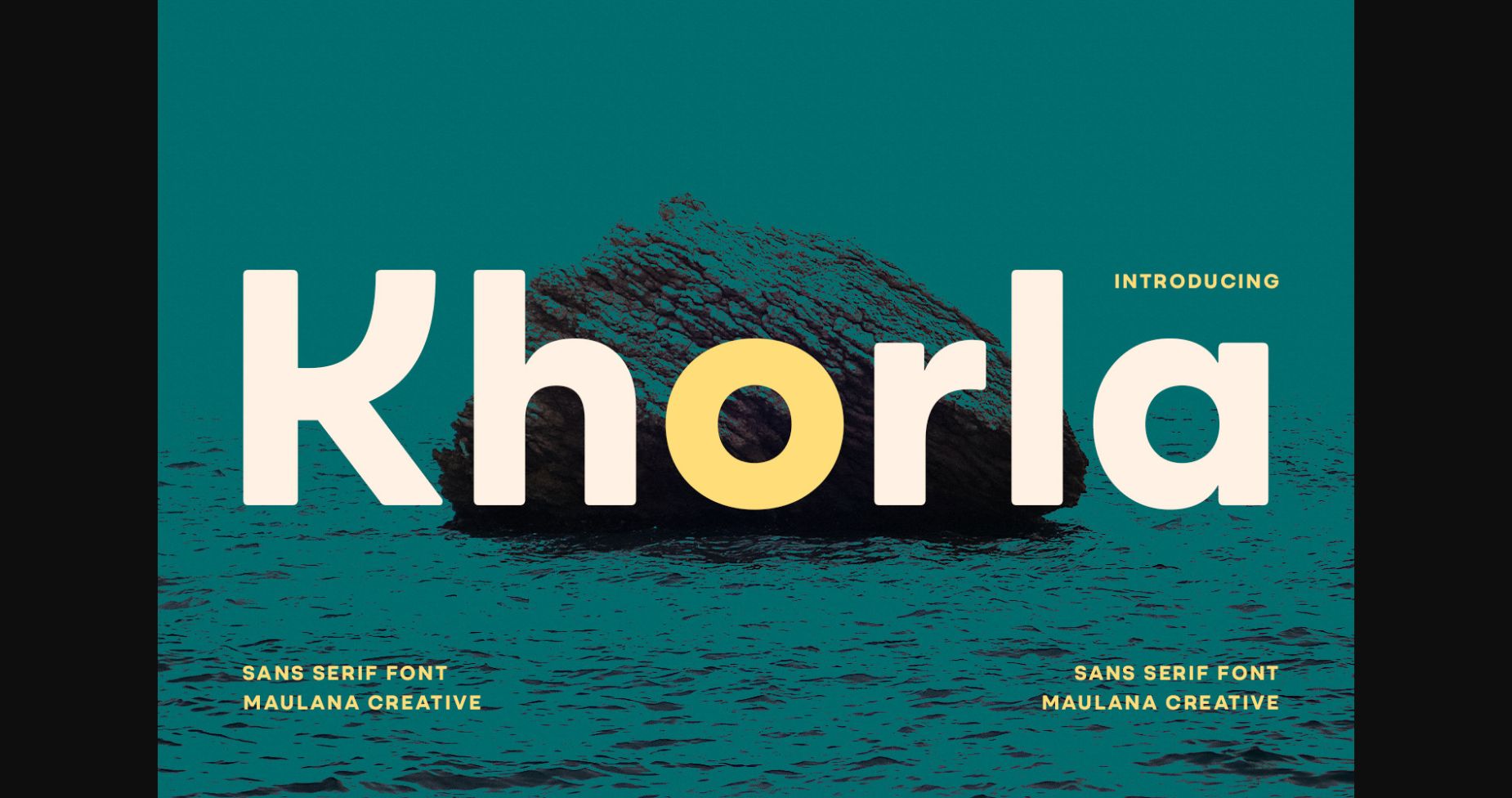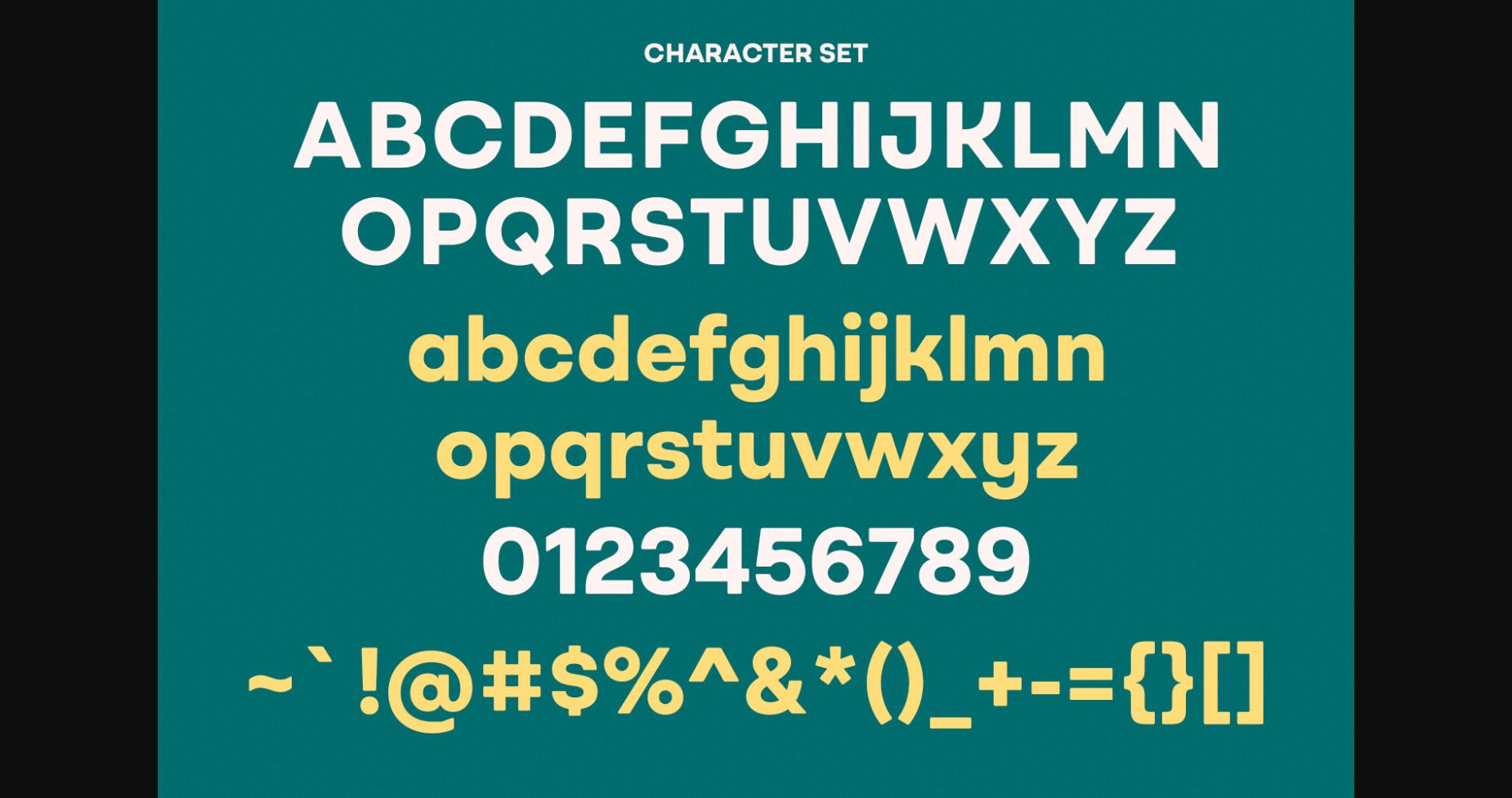
About Khorla Font
Khorla is a simple semi-geometric sans serif font. It comes with soft edges stroke, a fun character with a bit of ligature, and alternates to give you extra creative work. Khorla is good for logo design, social media, book titles, short text, and even long text and is good for your secondary text combined with a script or serif. Make stunning work with Khorla font!